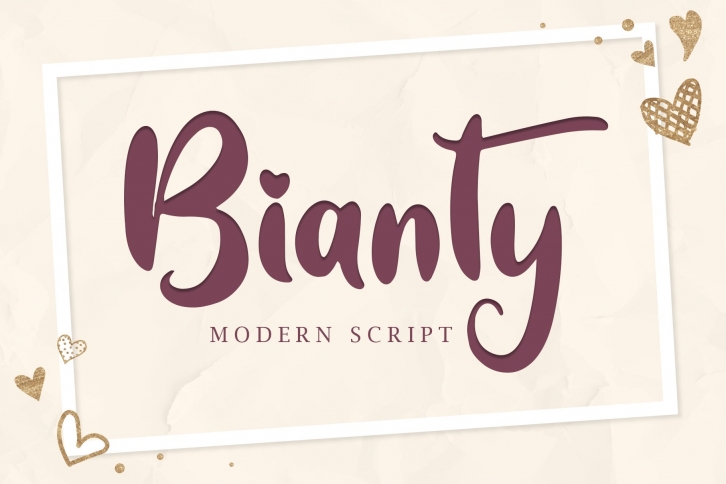
Bianty is a sweet and friendly handwritten font. Its natural and unique style makes it incredibly fitting to a large pool of designs. The only limit is your imagination!